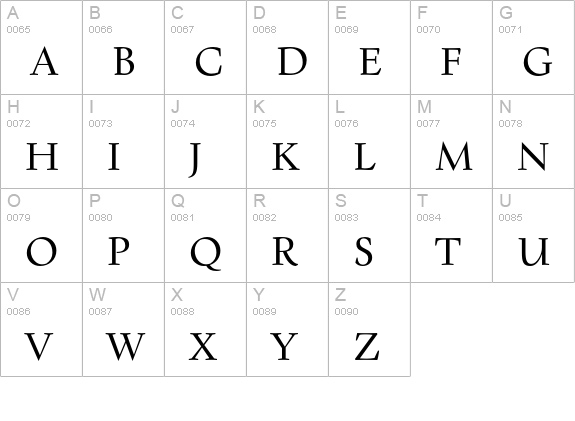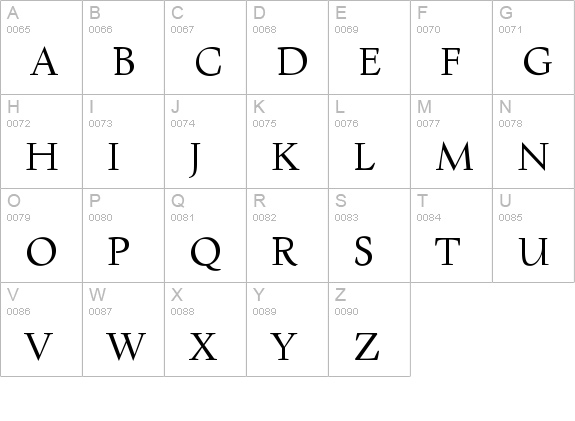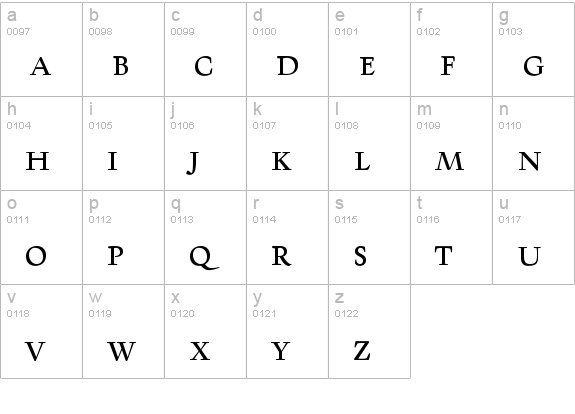
KennedySC Book Font Details
KennedySC Book is a comfortable, highly readable variant in the KennedySC typeface family \xE2\x80\x94 well suited to long-form body text, articles, and editorial content.
Introducing the exquisite KennedySC Book font, a stunning typographic masterpiece that effortlessly combines elegance and readability. Crafted with meticulous attention to detail, this font is a true testament to the artistry of typography. KennedySC Book font boasts a timeless aesthetic, making it the perfect choice for a wide range of design projects. Whether you're creating book covers, editorial layouts, branding materials, or any other creative endeavor, this font will elevate your designs with its sophisticated charm. With its balanced letterforms and harmonious proportions, KennedySC Book font offers exceptional legibility, ensuring that your message is conveyed clearly and effectively. Each character has been meticulously crafted to create a harmonious flow, resulting in a seamless reading experience. But what sets KennedySC Book font apart is its accessibility - it is freely available to download at FontsMarket.com. This means that designers, creatives, and enthusiasts alike can enjoy the beauty and functionality of this font without any limitations. So, why wait? Unleash your creativity and elevate your designs with the timeless elegance of KennedySC Book font. Download it for free at FontsMarket.com and experience the transformative power of exceptional typography.